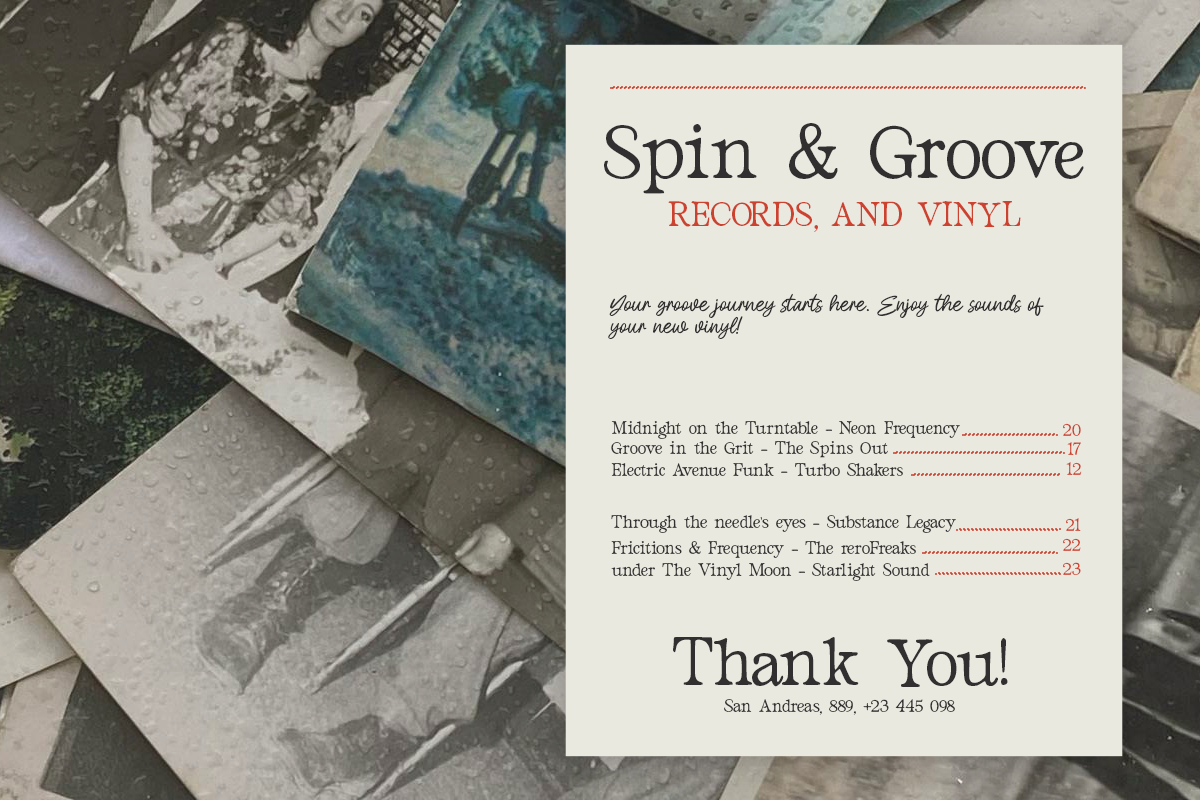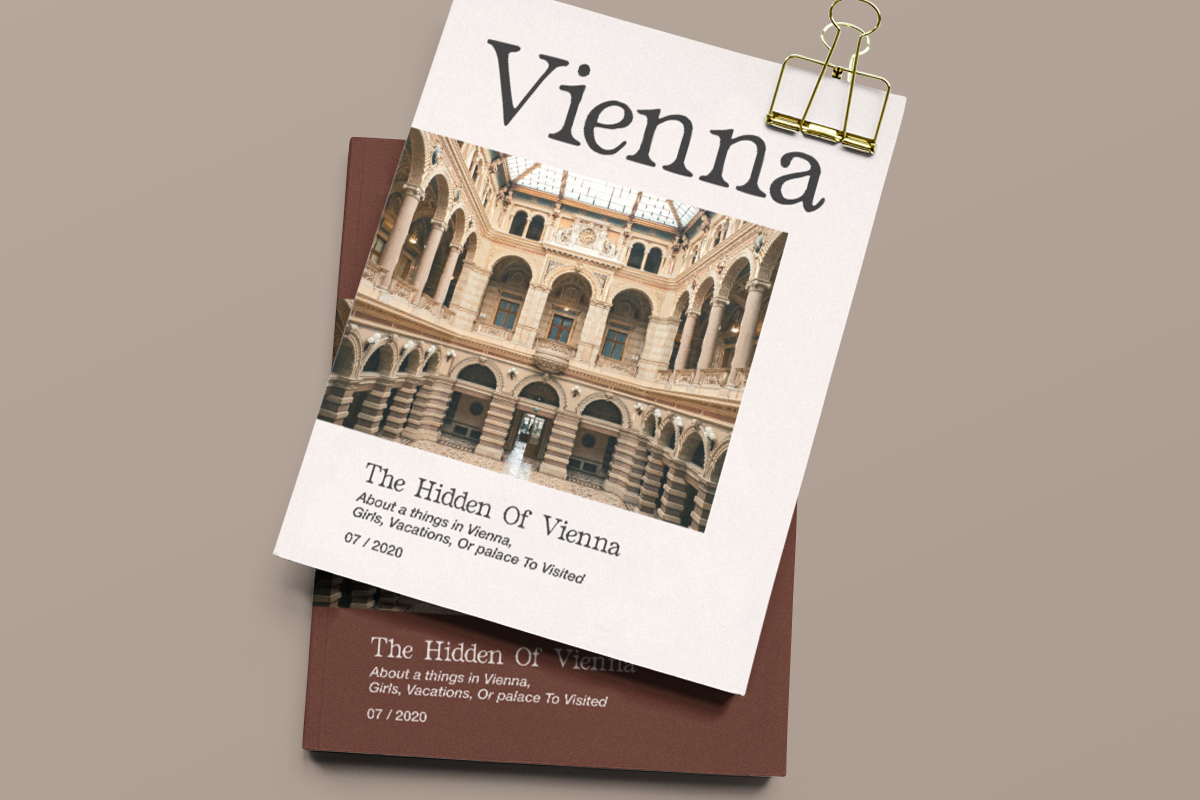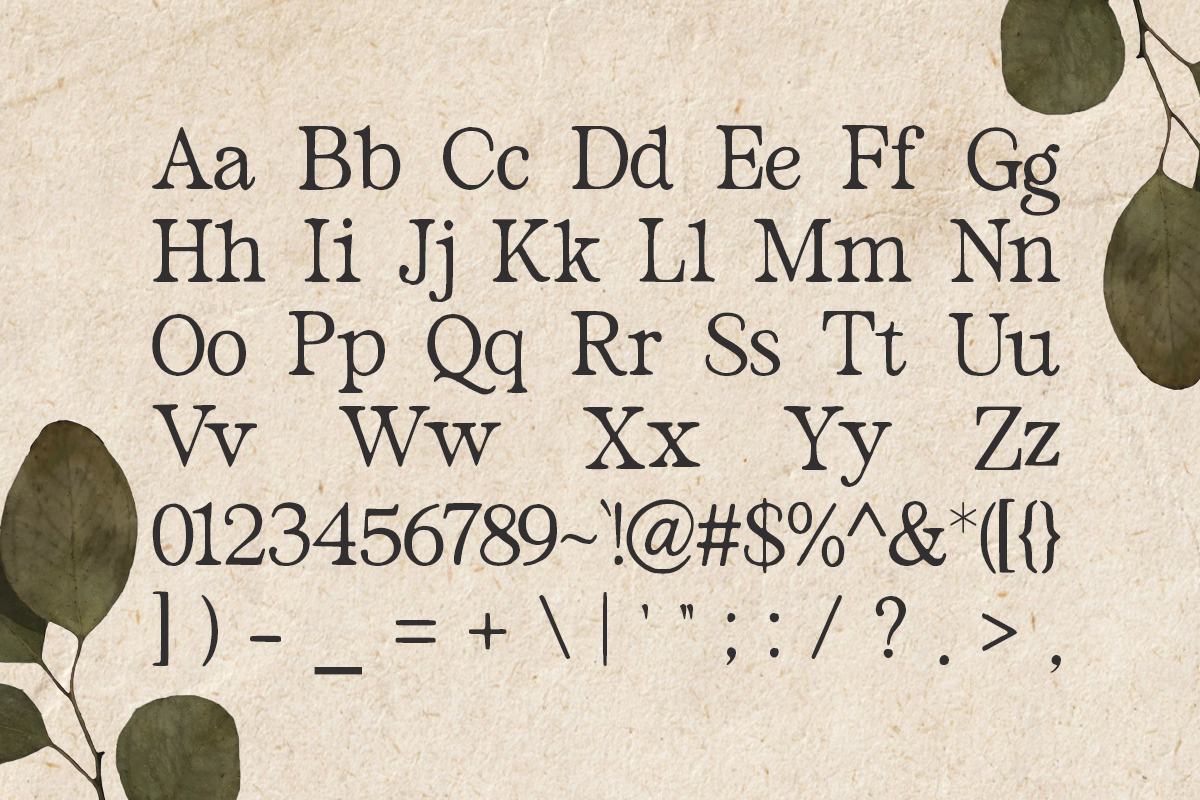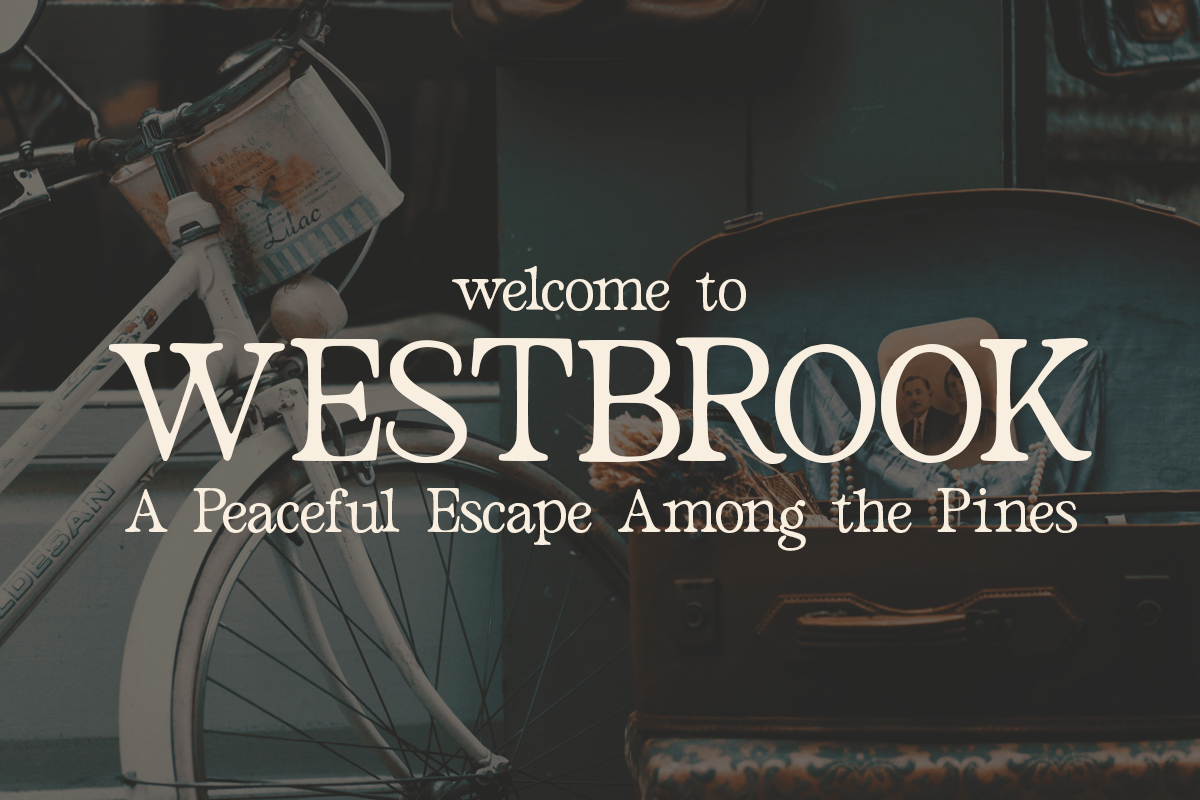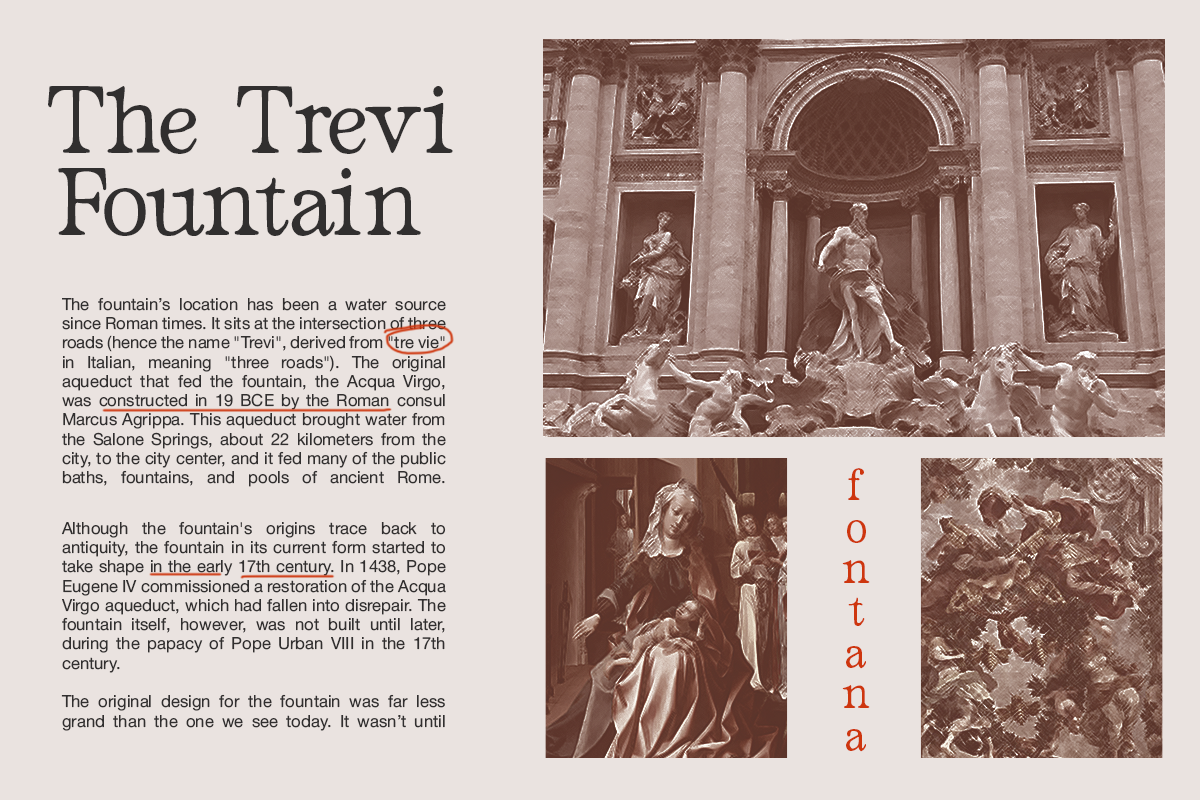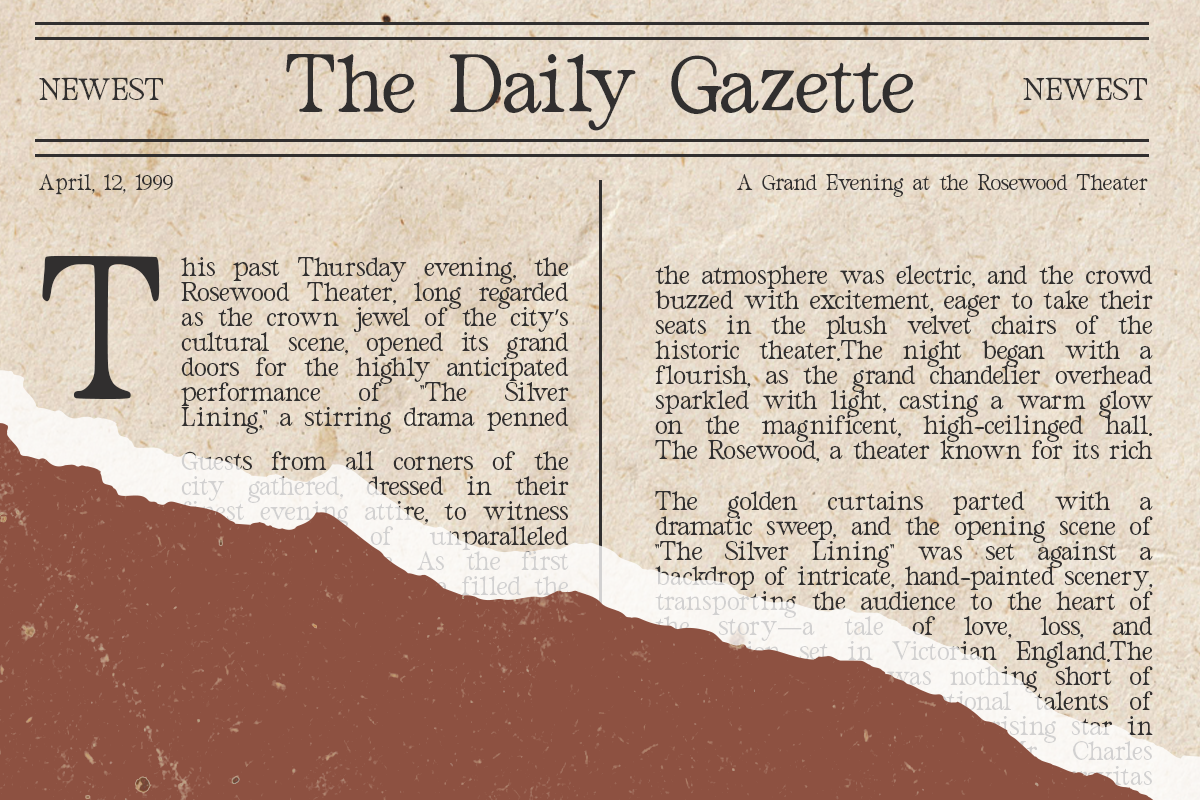
Bilena - Old Style Serif
Bilena - An old-style serif font with a handcrafted, timeless design. Perfect for classic typography, vintage aesthetics, and elegant lettering, Bilena adds sophistication and charm to book covers, editorial layouts, and branding. Its unique, organic style makes it ideal for projects that demand a touch of history and artistry.
- 1 Style: Regular
- Full Character Set: Uppercase, lowercase, numbers, symbols, and punctuation